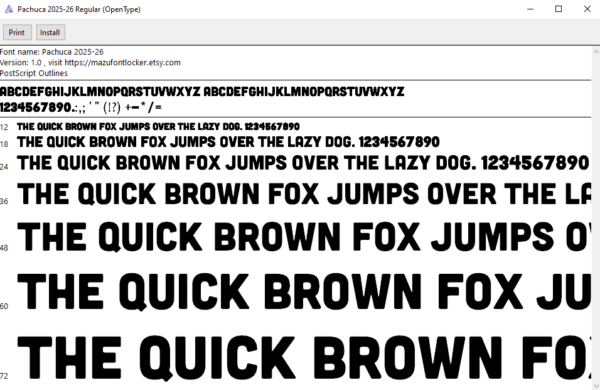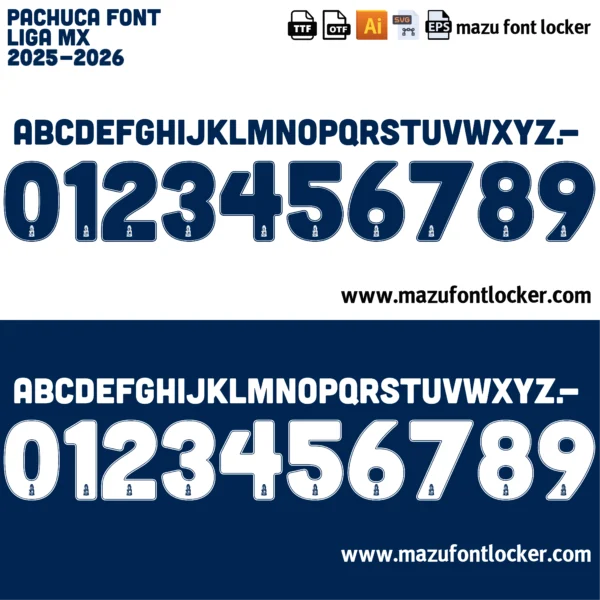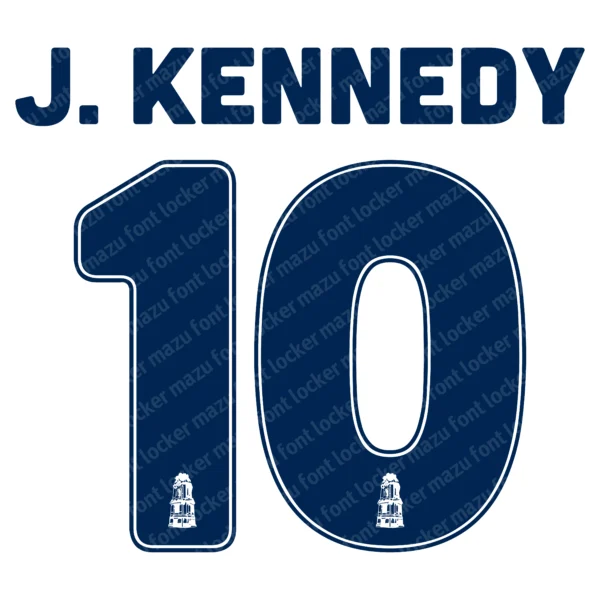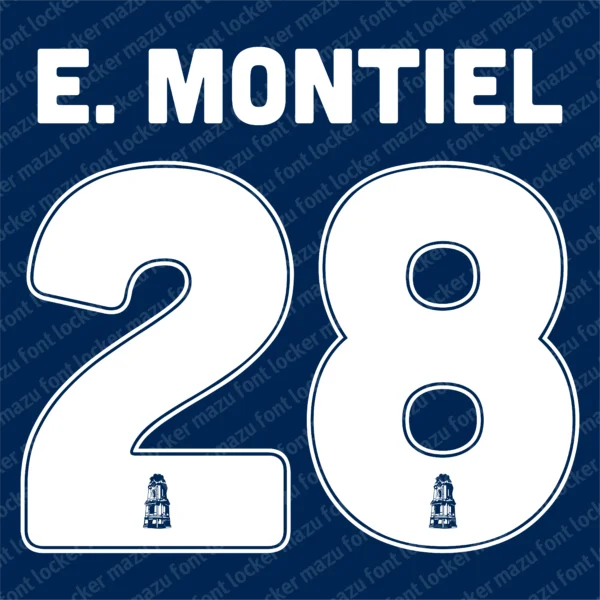
CF Pachuca 2025-2026 Font Vector – Authentic Tuzos Typeface
The CF Pachuca 2025-2026 Font Vector is a premium typeface that accurately recreates the official match lettering worn by CF Pachuca during the 2025-2026 Liga MX season. This high-quality vector font kit captures the bold, dynamic, and modern typography that represents the proud Tuzos identity.
Designed for professional designers and passionate Pachuca fans, the CF Pachuca 2025-2026 Font Vector delivers perfect authenticity for creating realistic jersey mockups, fan merchandise, matchday posters, social media graphics, and much more. It blends beautifully with the classic blue and white home kit featuring the iconic CF Pachuca crest.
This font stands out because of its sharp vector details and strong club identity. Every letter and number is crafted to match the exact style used on the players’ shirts during the 2025-2026 season. Whether you are making realistic kit templates or exciting football content, the CF Pachuca 2025-2026 Font Vector gives your designs that authentic Tuzos look.
The letterforms in the CF Pachuca 2025-2026 Font Vector are tall, bold, and highly readable. The strokes have a strong, clean weight with excellent edge definition that looks powerful on the back of jerseys while maintaining modern elegance and clarity.
• Full uppercase A–Z and numbers 0–9 in authentic CF Pachuca 2025-2026 style
• Special CF Pachuca crest glyph for accurate shirt number detailing
• Create highly realistic CF Pachuca 2025-2026 home and away jersey mockups with accurate lettering
The CF Pachuca 2025-2026 Font Vector is an independently designed typeface package. It is carefully crafted to replicate the official shirt lettering style of the 2025-2026 season. This font kit is perfect for creative projects, fan edits, current jersey designs, and custom football graphics.